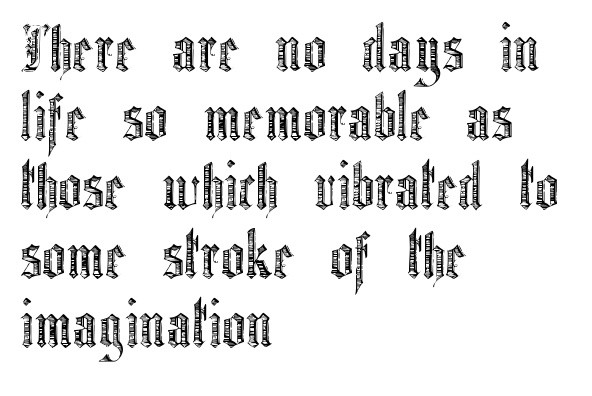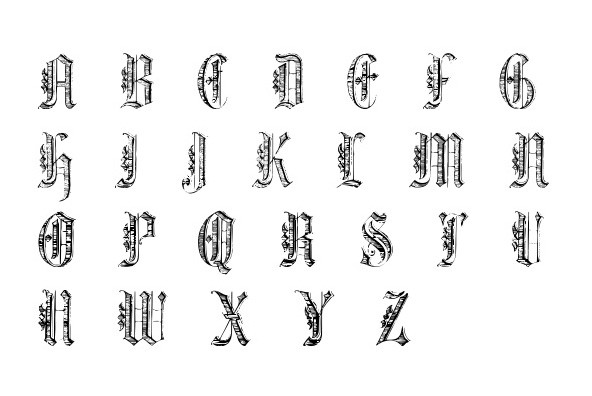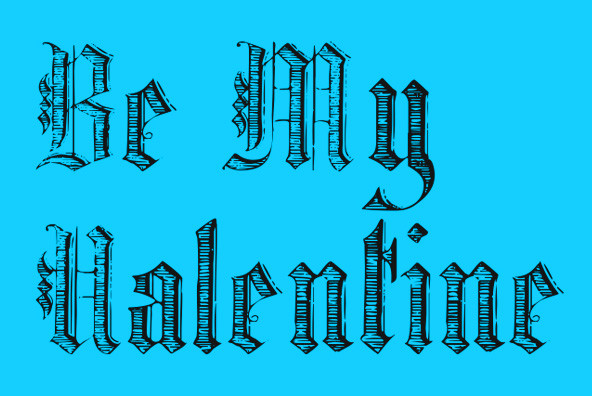
Gothic Trashed Gothic Trashed
A classic font design remastered by the type foundry Intellecta Design. Distressed and antique, use this font in display purposes for a stylized type design. Contains a limited amount of letter designs in this design, works best when used for headers and set manually.